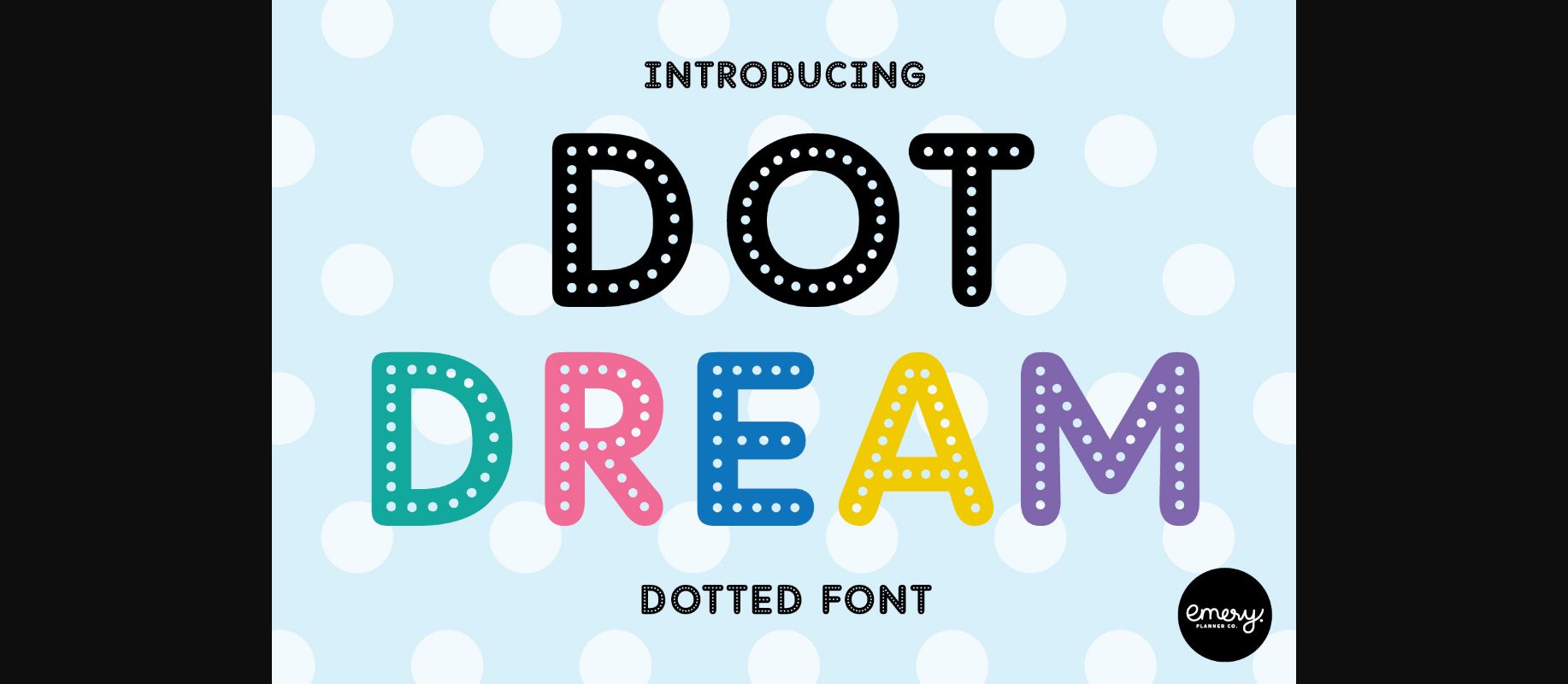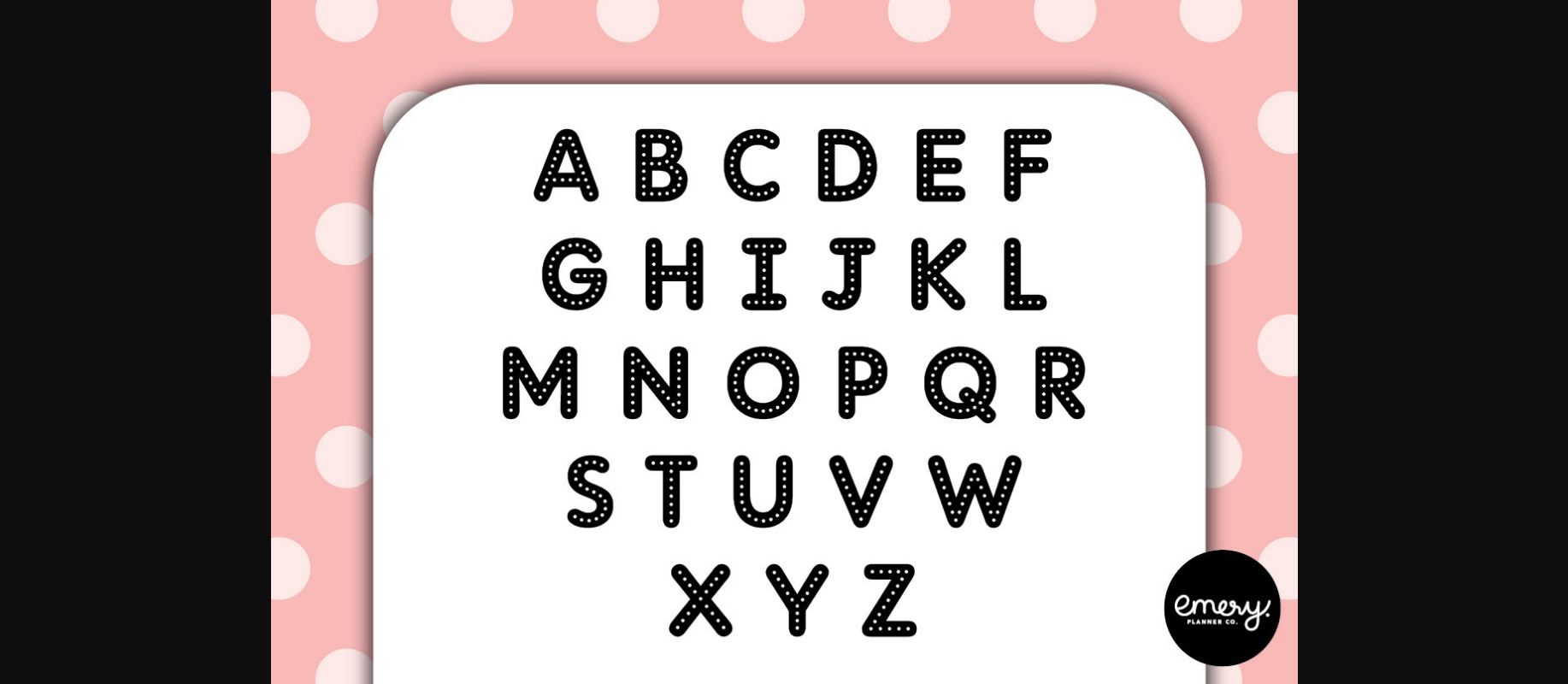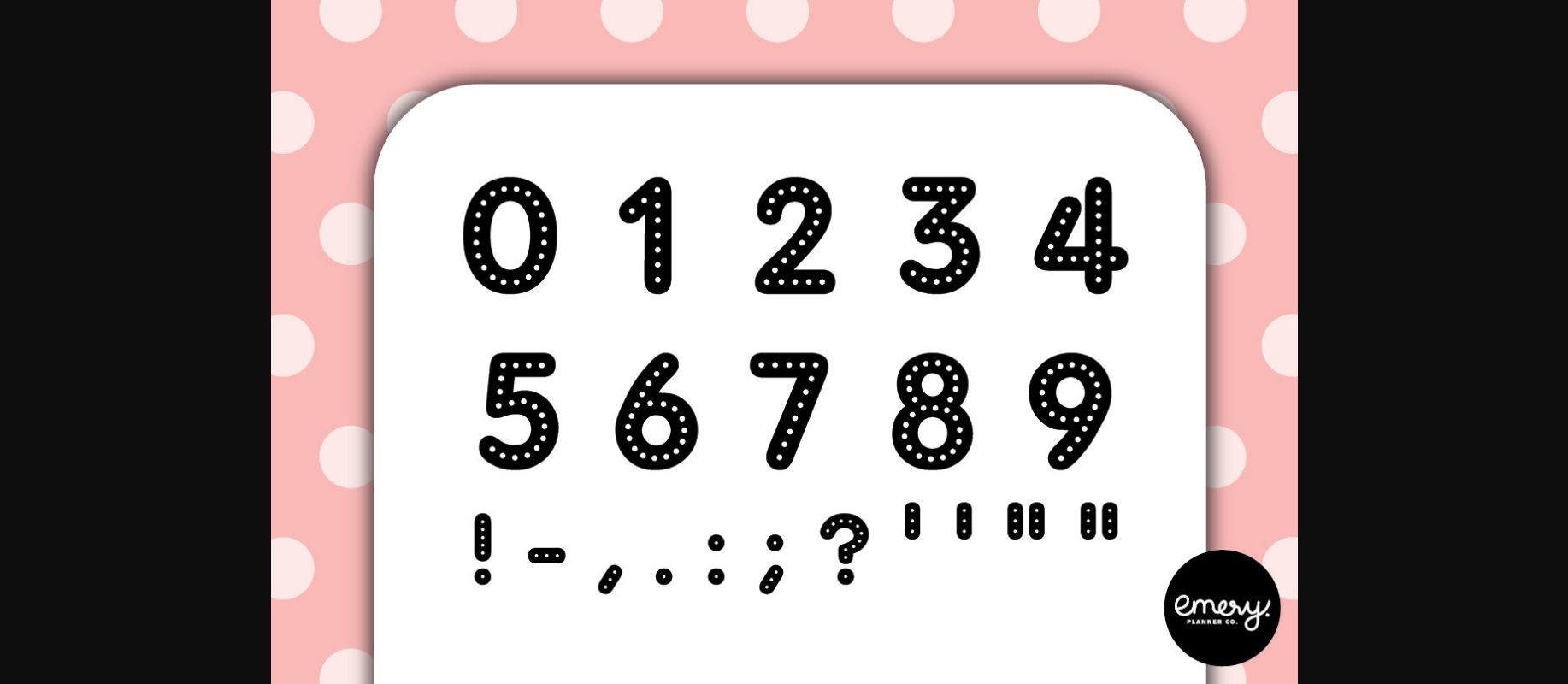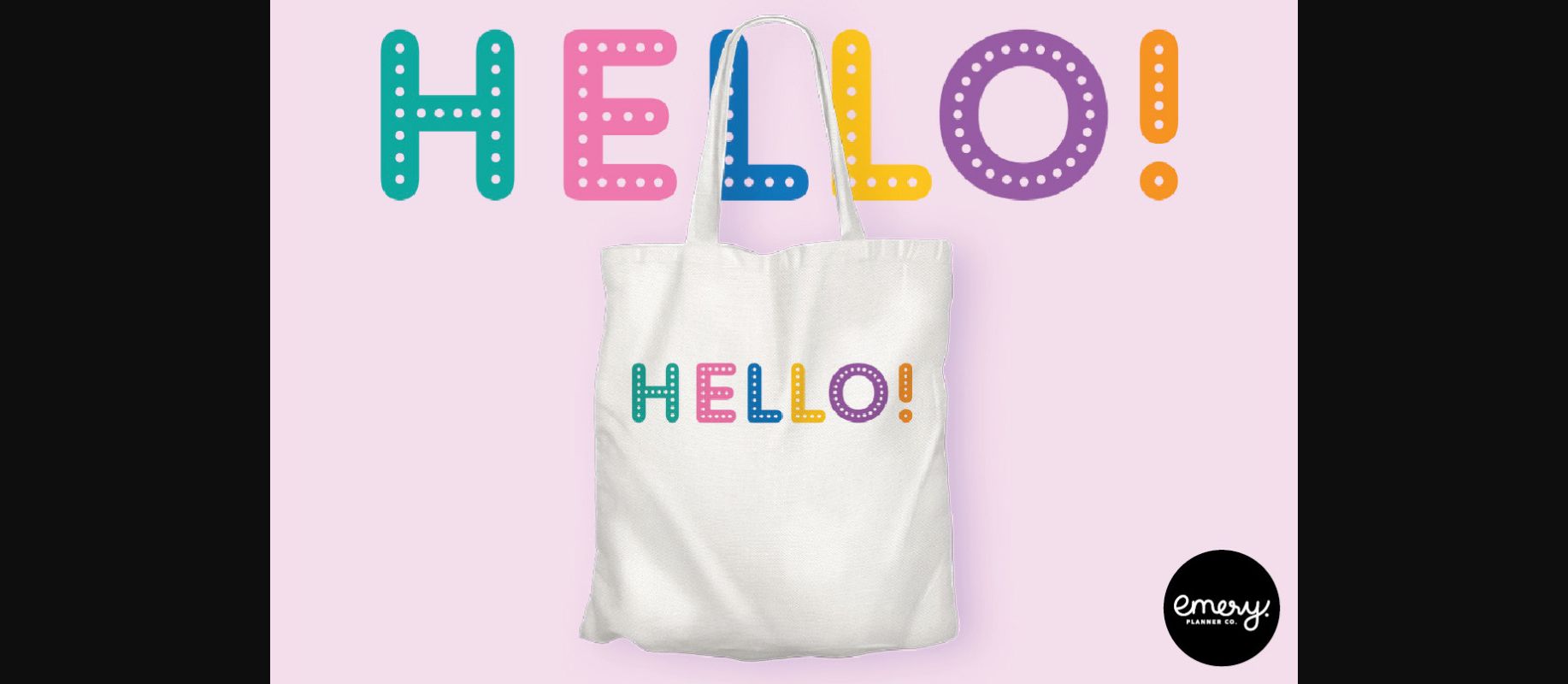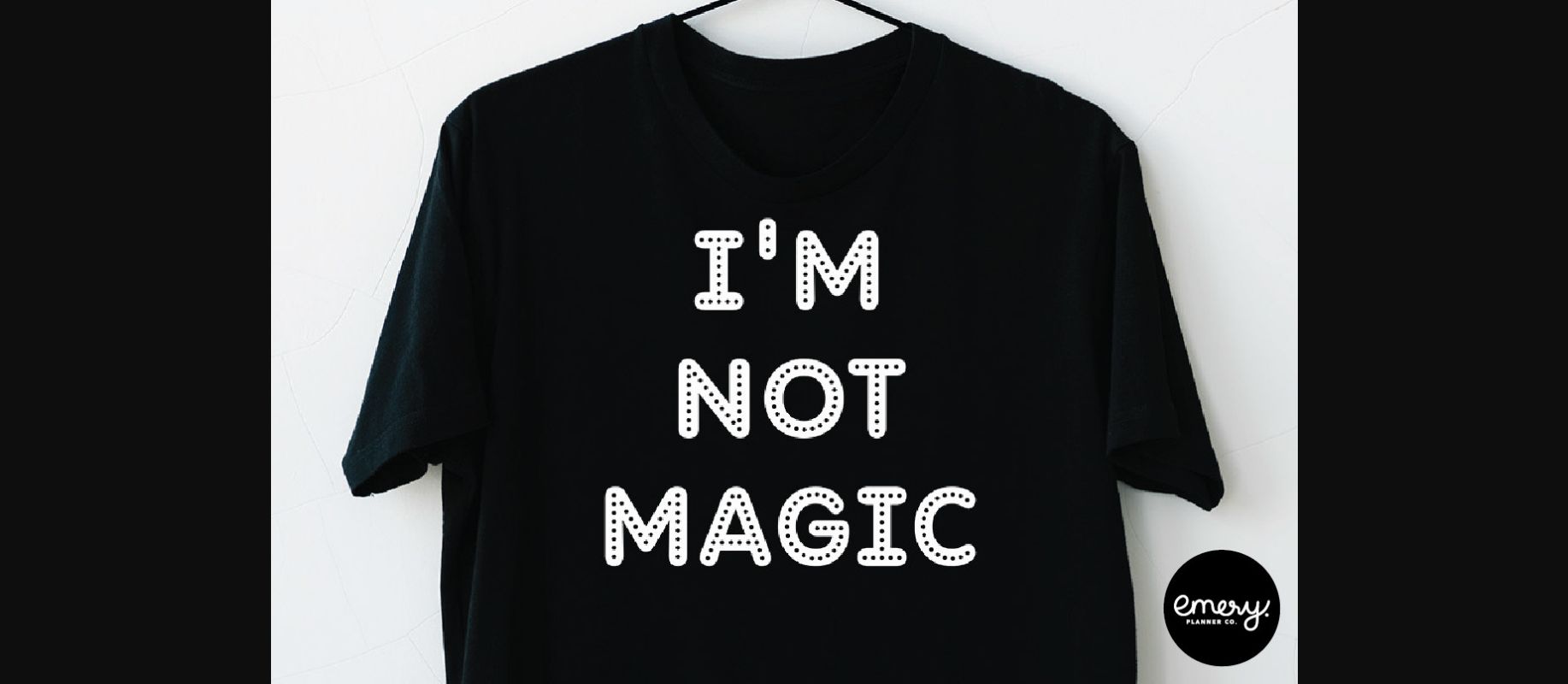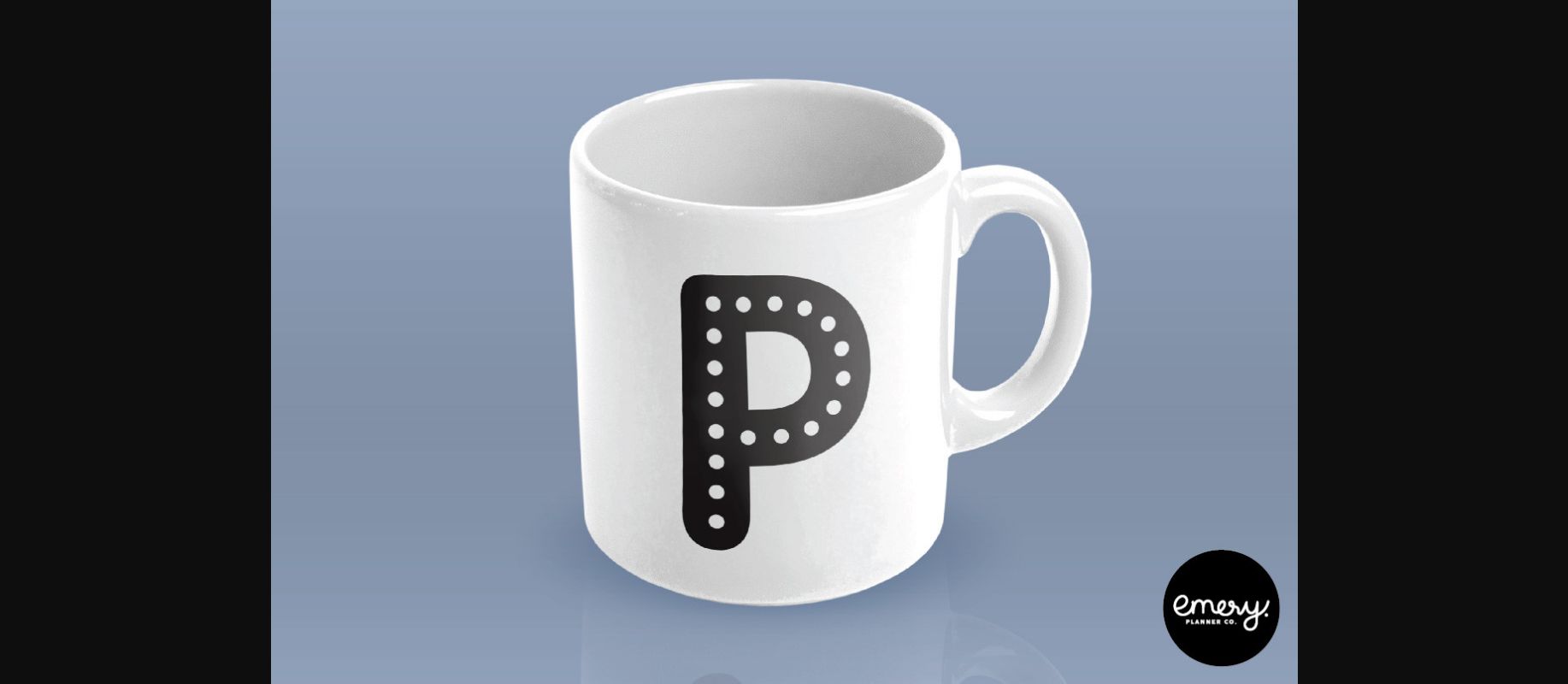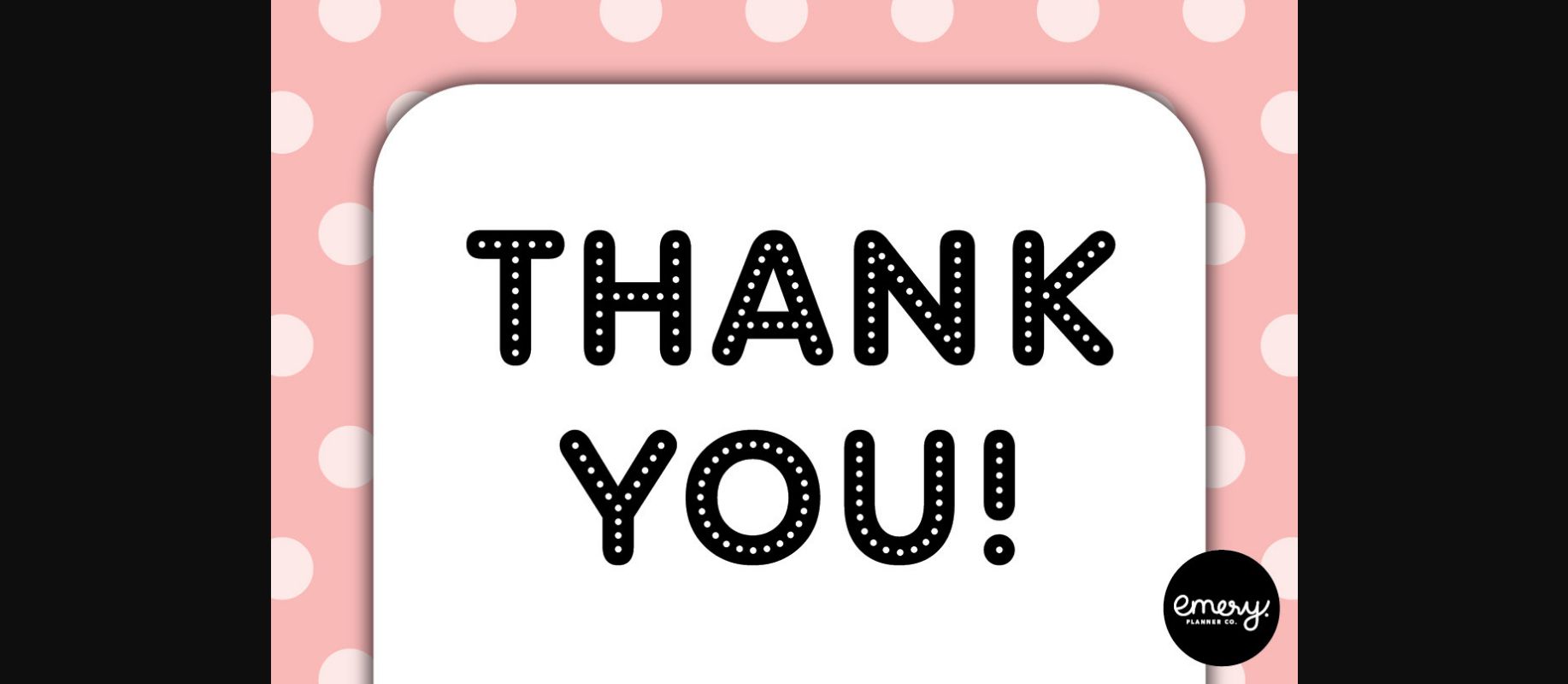
This font is suitable for a wide variety of projects such as educational resources, headlines, logos, labels, branding projects, magazines, homeware designs, product packaging, mugs, quotes, posters, and more.